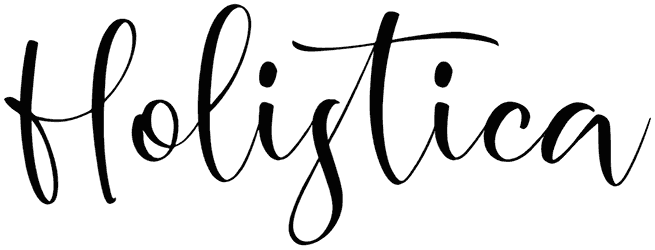
Holistica Font
Manual contexts are always one of the most appealing outward for creative designs to receive a lot of attention. Holistica is a handwritten font that can cause this with its natural twisting letter style. Supporting A-Z characters in two versions gives you a chance to use this script font for different projects, such as planners, greeting cards, mugs, and so forth.